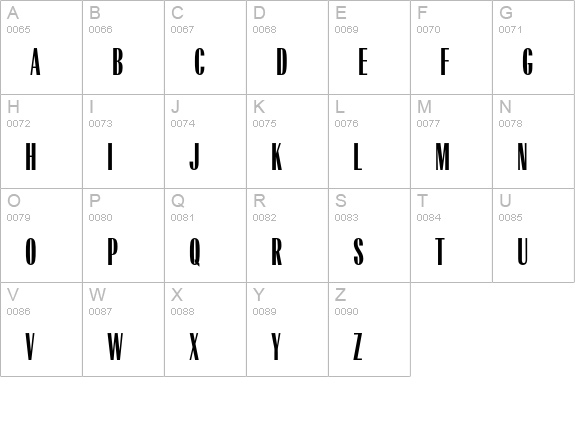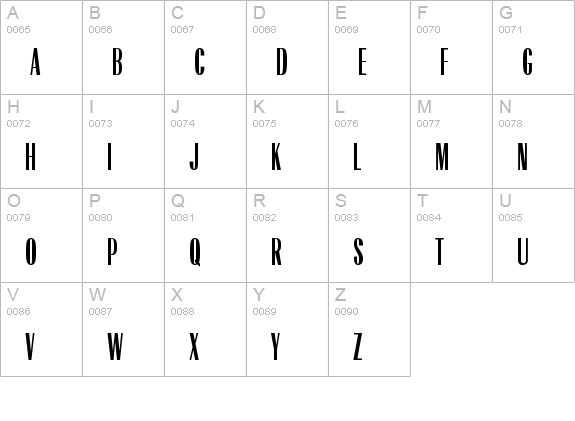
RadiantEFDisplay-CondNo6 Font Details
RadiantEFDisplay-CondNo6 is a stunning font that exudes elegance and sophistication. With its unique condensed design, it is perfect for adding a touch of class to any project. The tall and slender letterforms are crafted with precision, creating a harmonious balance between legibility and style. This font is ideal for a wide range of applications, from branding and packaging to editorial designs and advertising campaigns. Its versatile nature allows it to adapt seamlessly to any design concept, making it a valuable asset for designers and creatives. One of the standout features of RadiantEFDisplay-CondNo6 is its versatility. It can be used effectively in both large and small sizes, ensuring that your message is conveyed with clarity and impact. The sharp and crisp lines of each letterform add a modern edge, making this font suitable for contemporary designs. What sets RadiantEFDisplay-CondNo6 apart is that it is freely available to download at FontsMarket.com. This means that you can easily access and utilize this font for your personal and commercial projects without any restrictions. The convenience of having such a high-quality font at your fingertips allows you to elevate your designs effortlessly. Whether you are designing a logo, creating a poster, or crafting a website, RadiantEFDisplay-CondNo6 will undoubtedly make a lasting impression. Its timeless appeal and impeccable craftsmanship make it a must-have for any designer looking to add a touch of sophistication to their work. Download RadiantEFDisplay-CondNo6 for free now at FontsMarket.com and unlock a world of creative possibilities. Embrace the elegance and versatility of this font and watch your designs come to life with style and finesse.